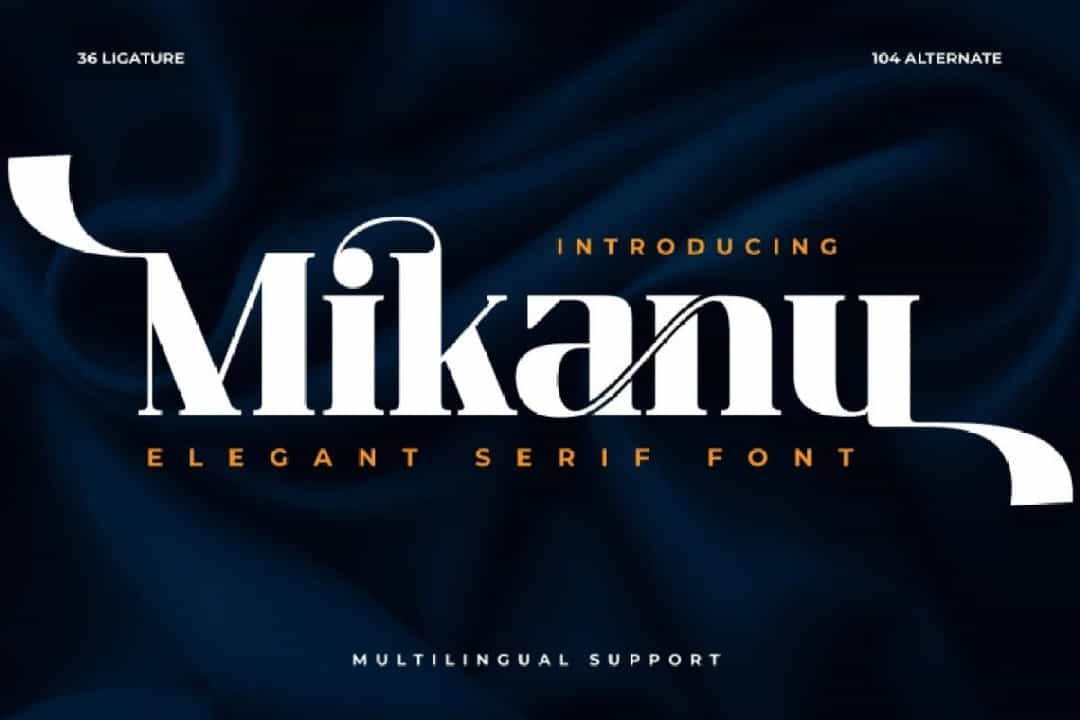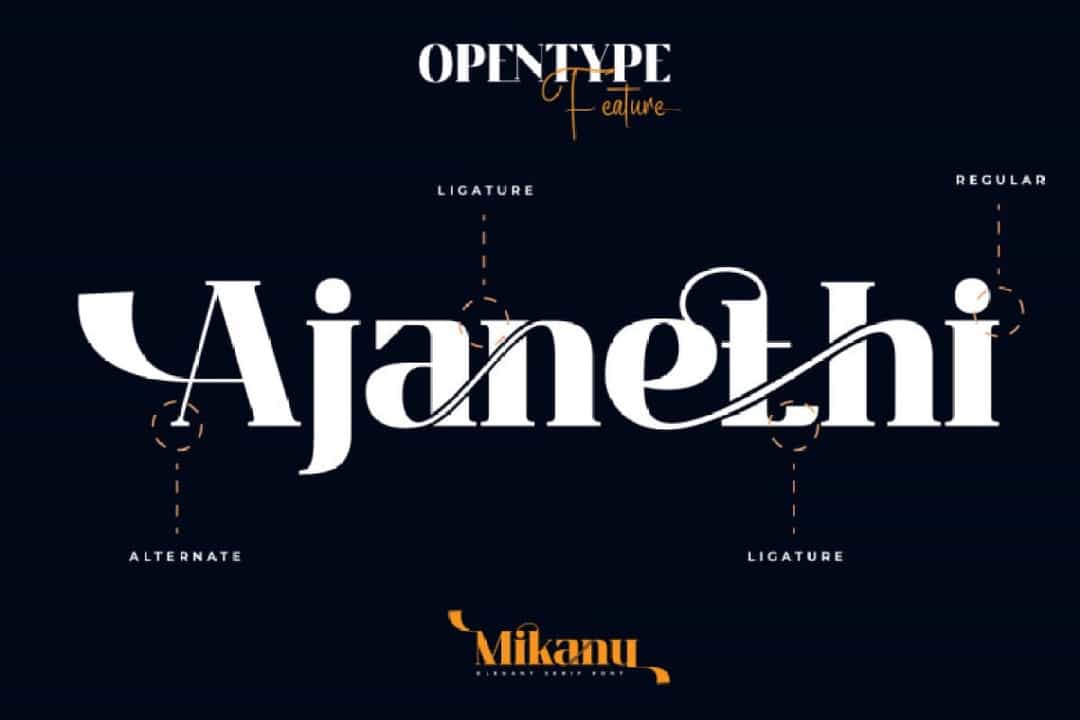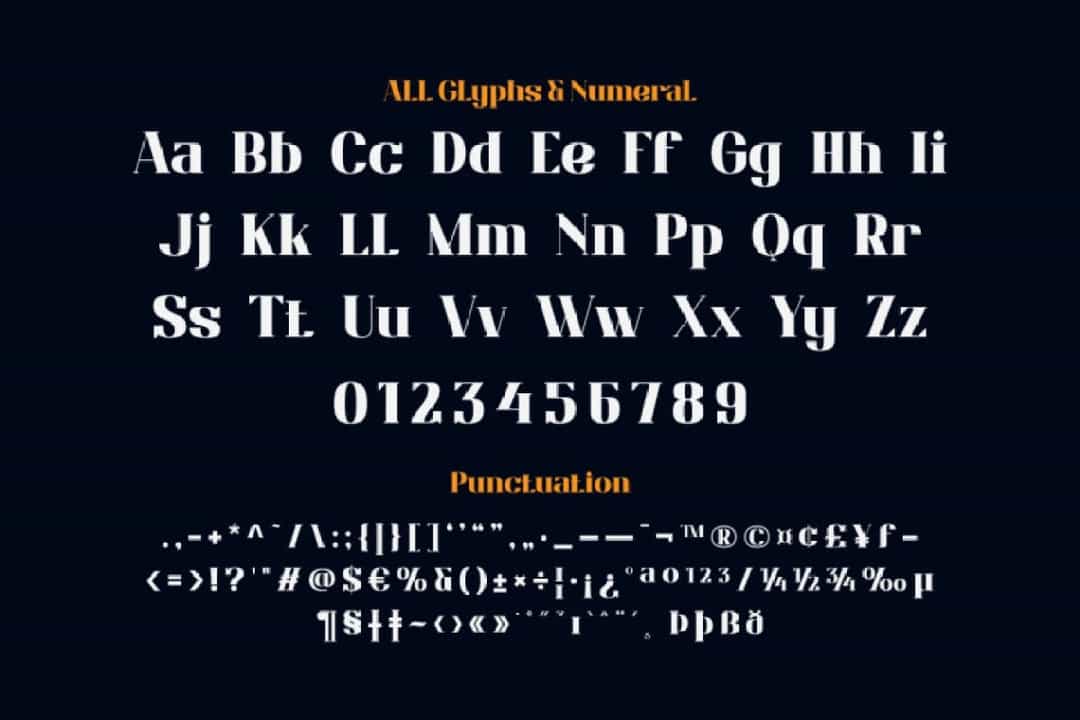
Mikanu font is ideal for projects that utilize old-fashioned modernism style serif fonts, with its elegant features adding an opulent aesthetic to your designs. Mikanu features unique and innovative features like ligatures and alternative fonts to produce more distinctive text.